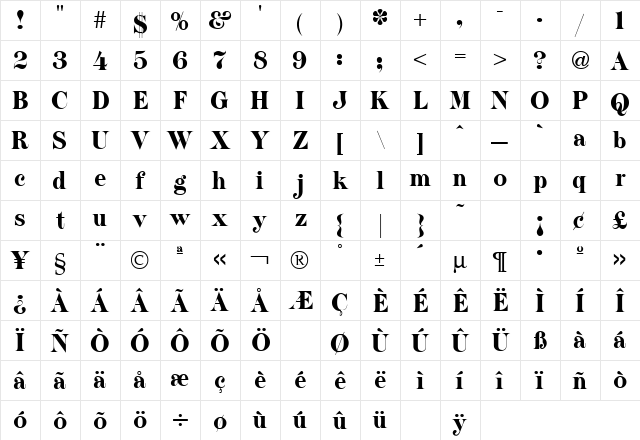
Milano Roman Regular
Design Context for Milano Roman Typeface
Milano Roman offers clean, dependable letterforms without strong stylistic allegiance, making it a practical choice for designers who need flexibility.